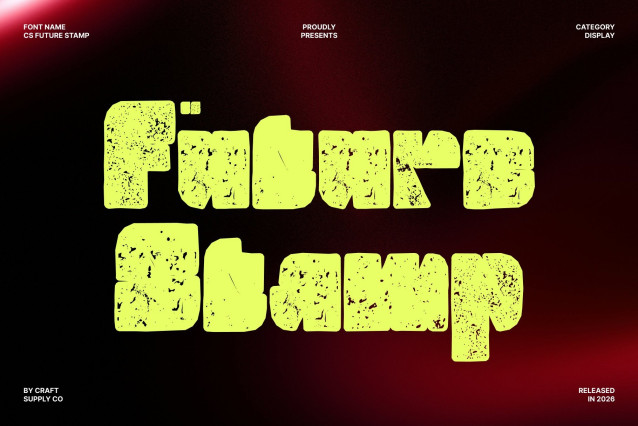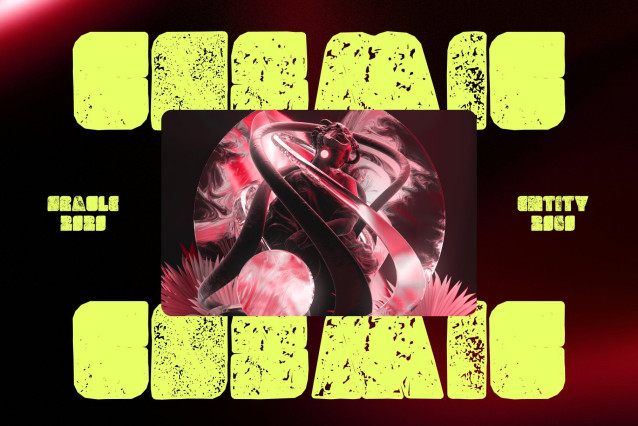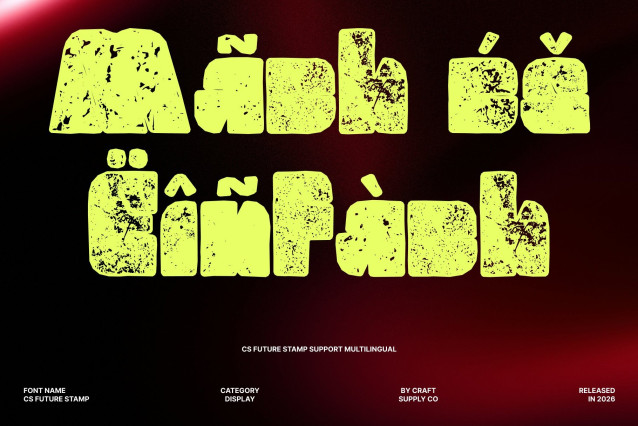
CS Future Stamp Font
CS Future Stamp – Bold Font: Embrace Creativity with Every Letter
Modern Display Font with Bold, Funky Shapes
This font is a modern display font that captivates with its bold and funky forms, offering a cheerful and eye-catching character. Its daring design features unconventional shapes and playful elements, making it a standout choice for creative and expressive projects.
Cheerful and Eye-Catching Character
With vibrant energy and dynamic letterforms, this font brings joy and excitement to any layout. The unique proportions and thick strokes create a lively visual rhythm that instantly attracts attention in headlines, titles, and promotional materials.
Stamp Texture with Retro Playful Character
Enhanced with a distinctive stamp effect, this font gains a fun vintage personality. The textured, ink-pressed appearance introduces subtle imperfections inspired by retro posters and classic printmaking, adding depth, warmth, and an artistic handcrafted feel to every letterform.